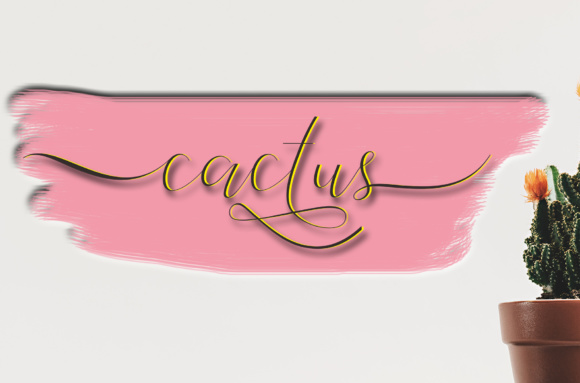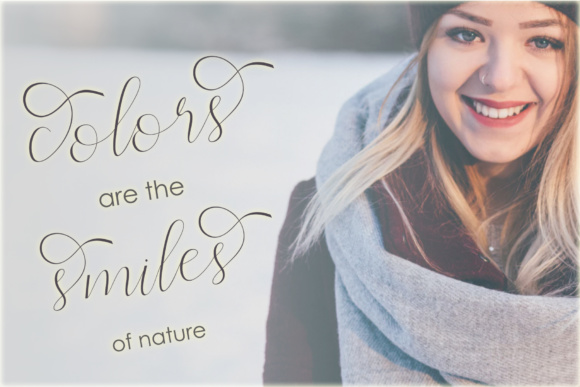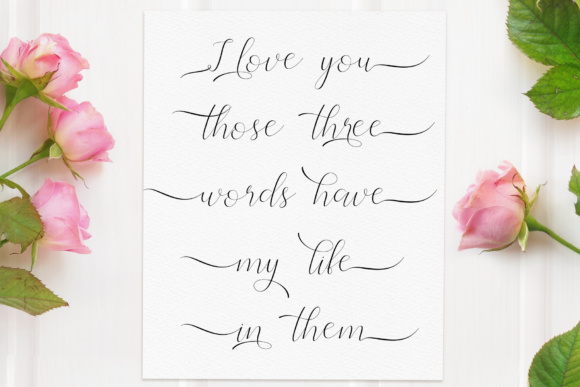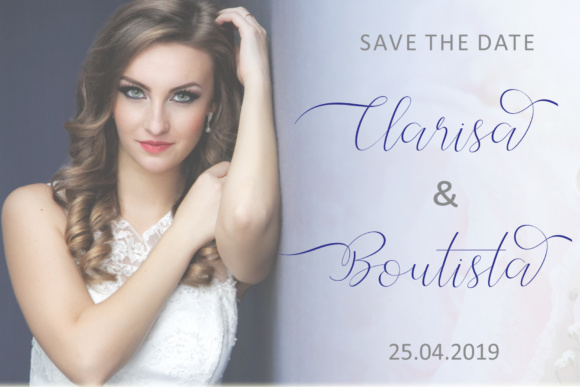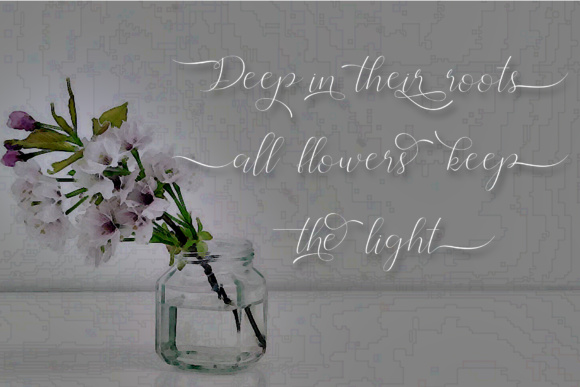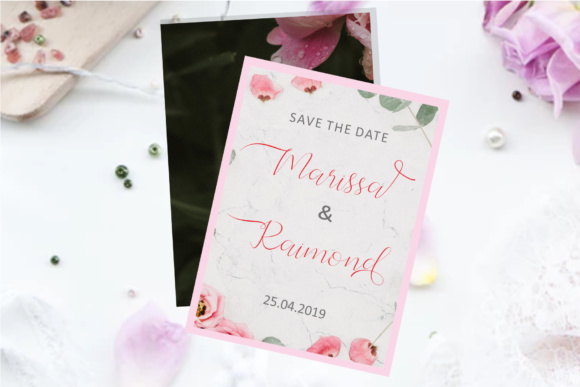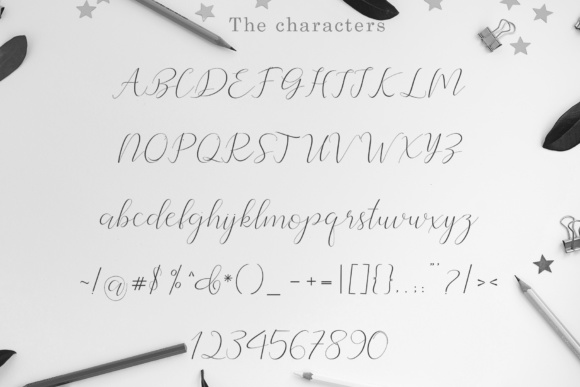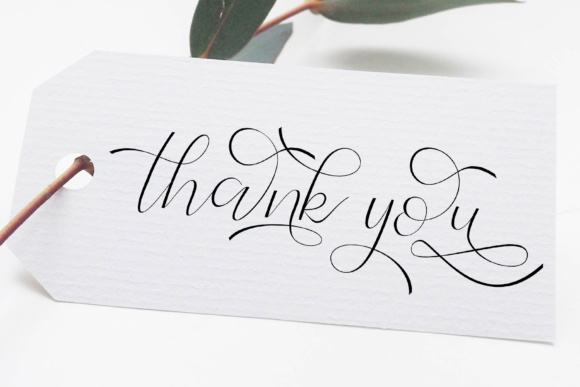
Silluettes Font
The Silluettes is a romantic typeface. It has a modern and elegant style which is perfect for every design that needs a handwritten feel.